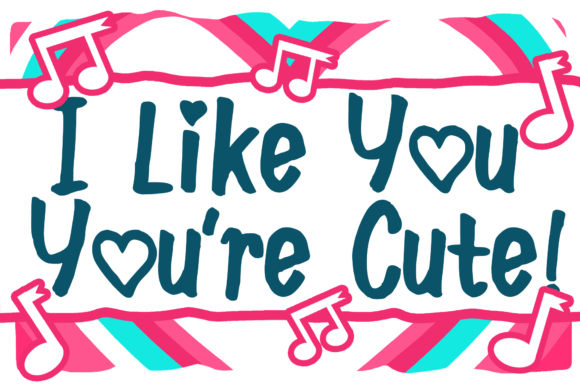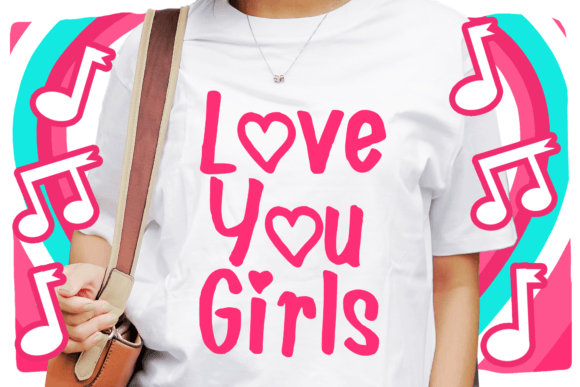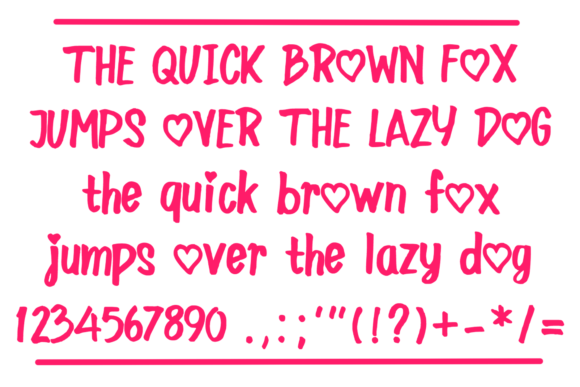
Introduction to Love Jingle Font
Love Jingle is a fun and lovely handwritten font that you can use it for anything ranging from t-shirts, book designs, packaging, and greeting cards to stickers and posters, or anything that needs a casual touch, it will be your perfect font to pick.
Fall in love with its incredibly versatile style, and use it to create lovely designs .